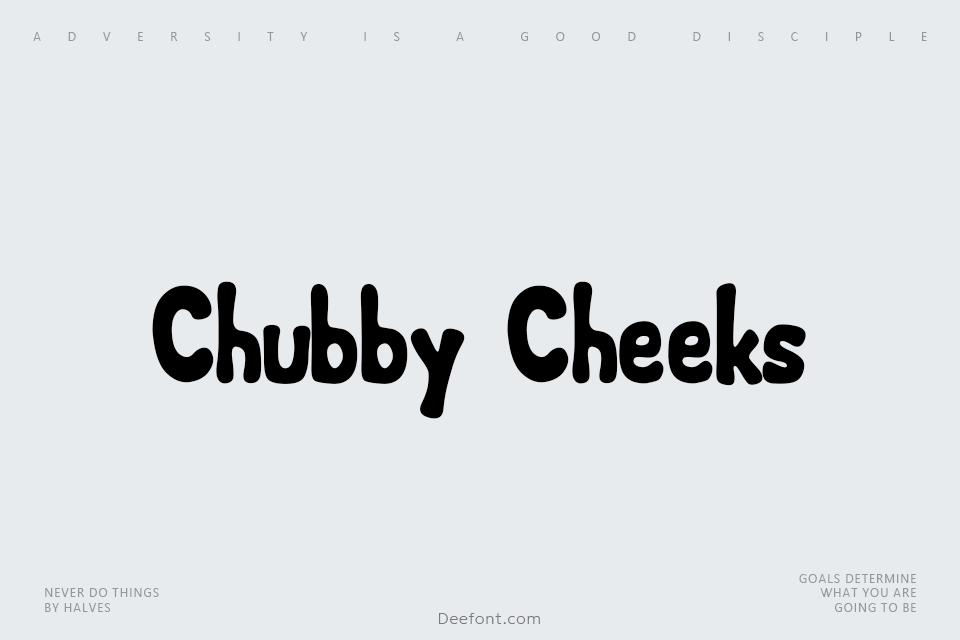
Chubby Cheeks Font
Chubby Cheeks is a playful and friendly display font characterized by its rounded, bouncy letterforms and warm aesthetic. Designed with whimsy and charm, this typeface features chubby curves, soft arcs, and open counters that create an inviting and approachable feel. Perfect for children’s projects, greeting cards, invitations, and creative endeavors, Chubby Cheeks brings joy and positivity to any design. Its versatile nature makes it suitable for headlines, logos, and decorative applications, offering both legibility and personality. With its hand-drawn quality and retro nostalgia, this font stands out as a timeless choice for projects requiring warmth and friendliness.